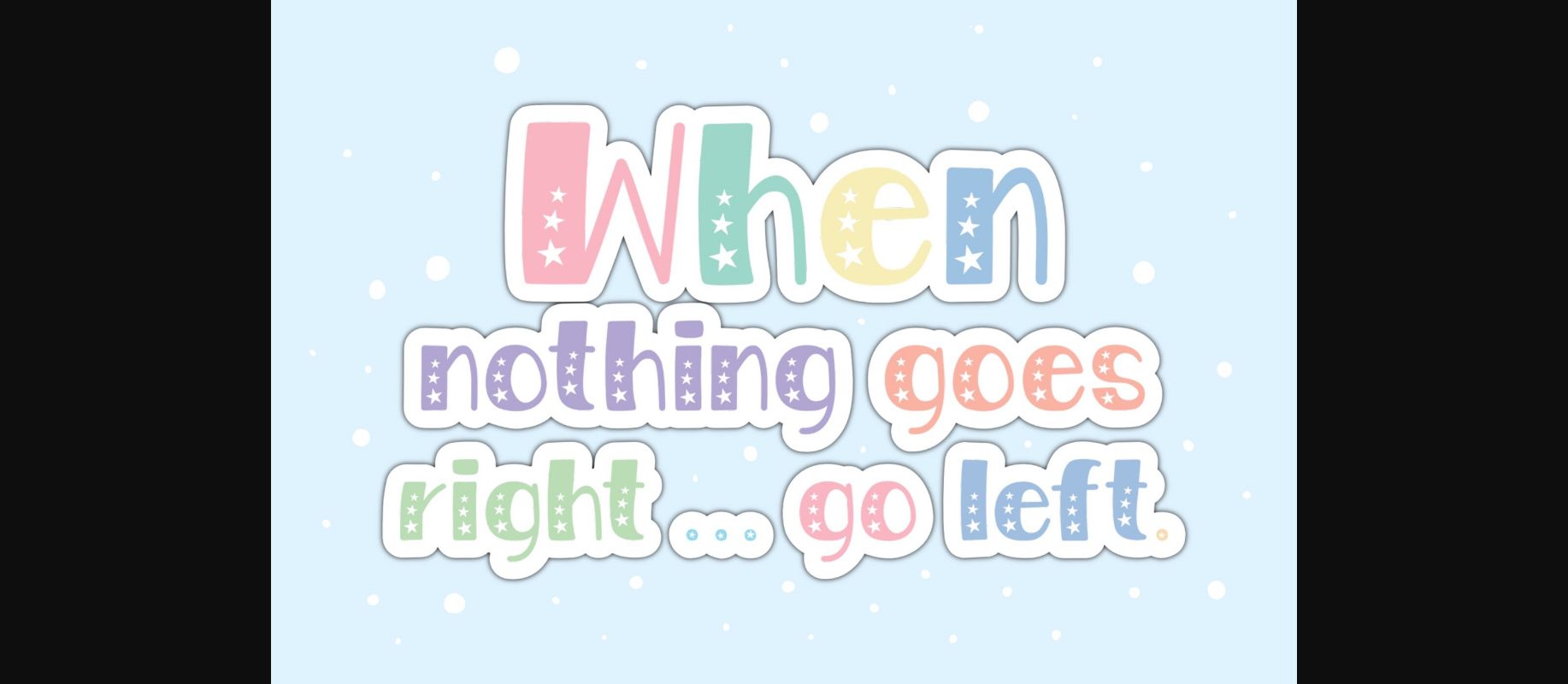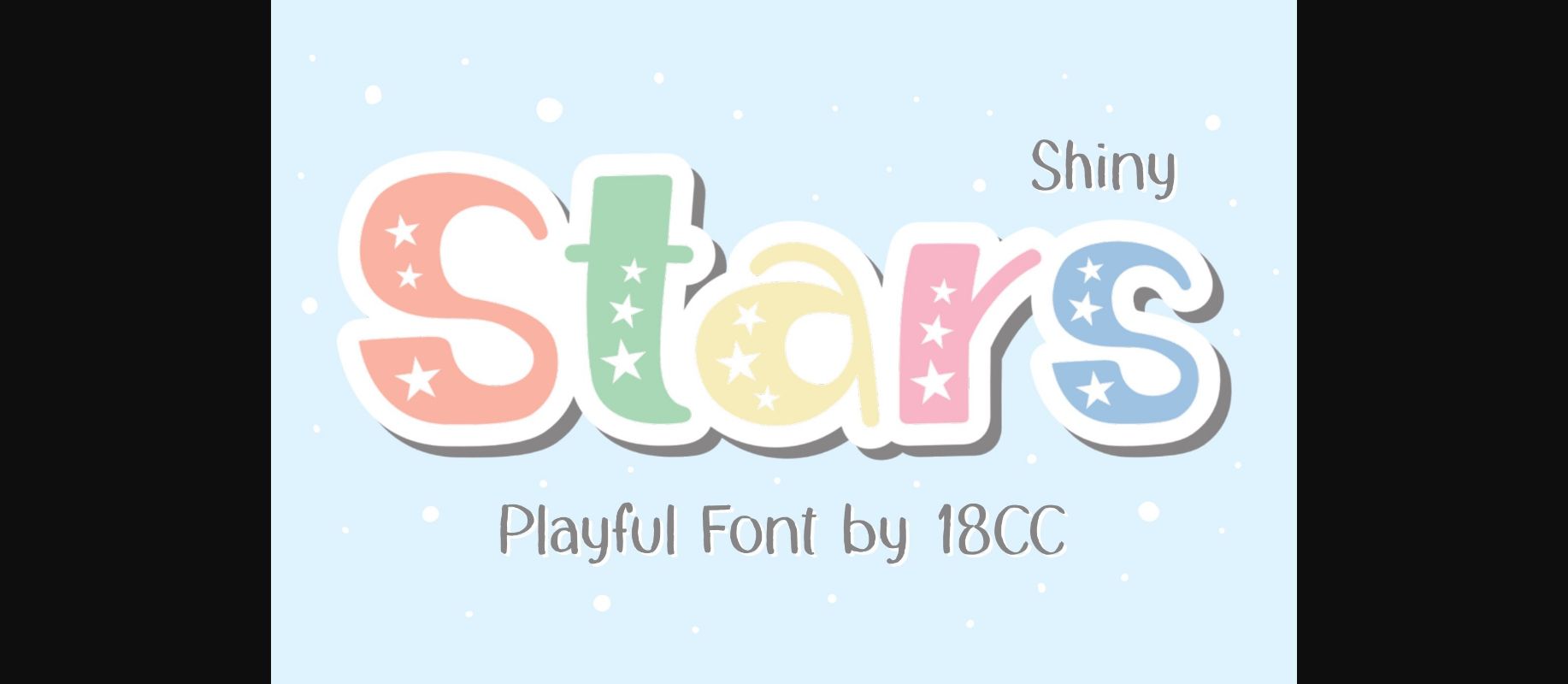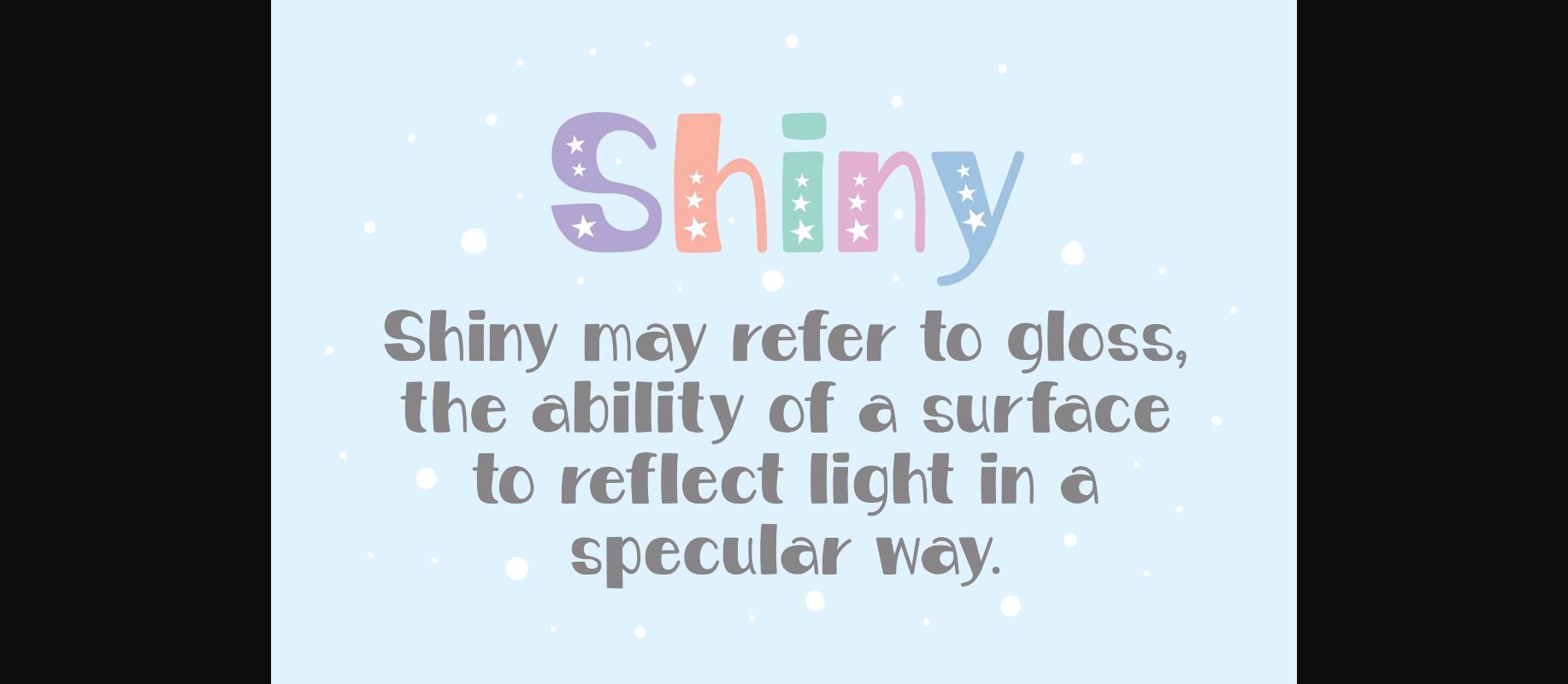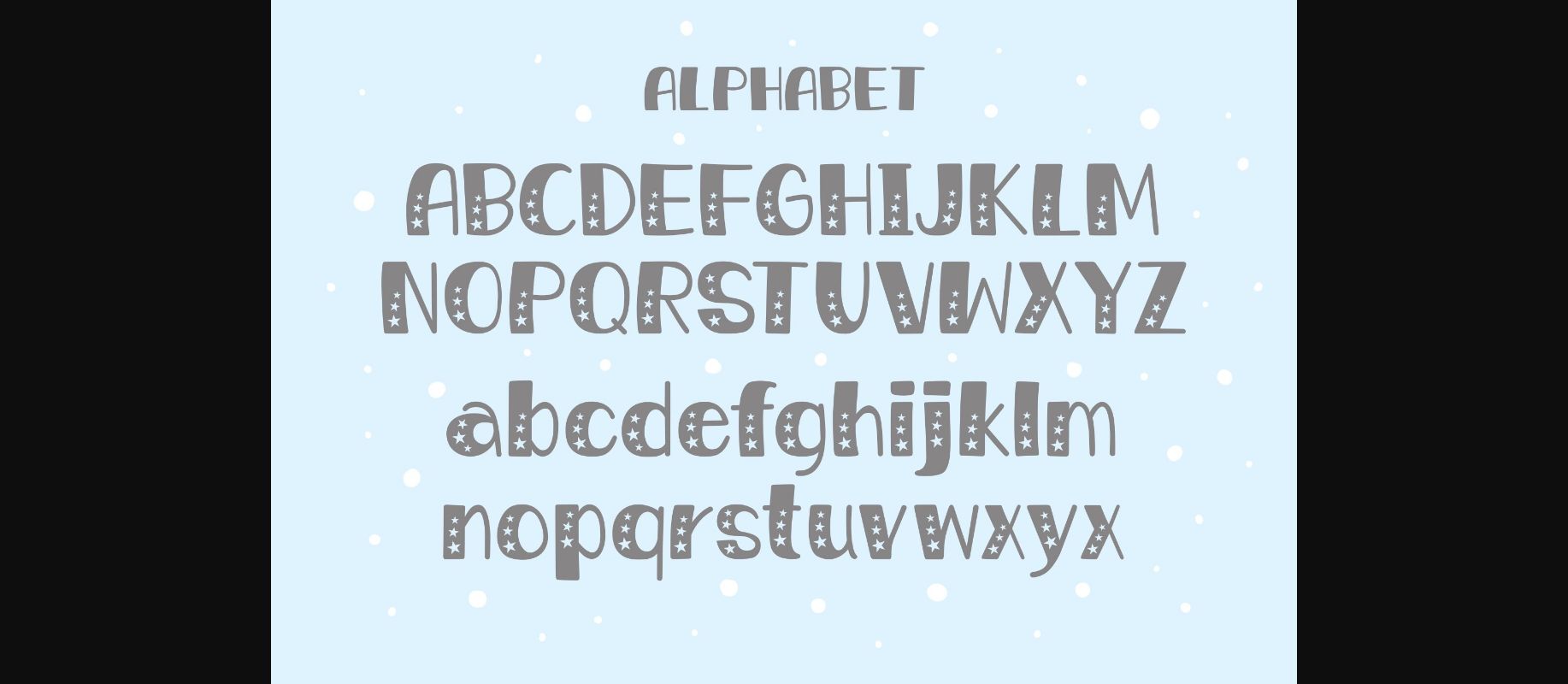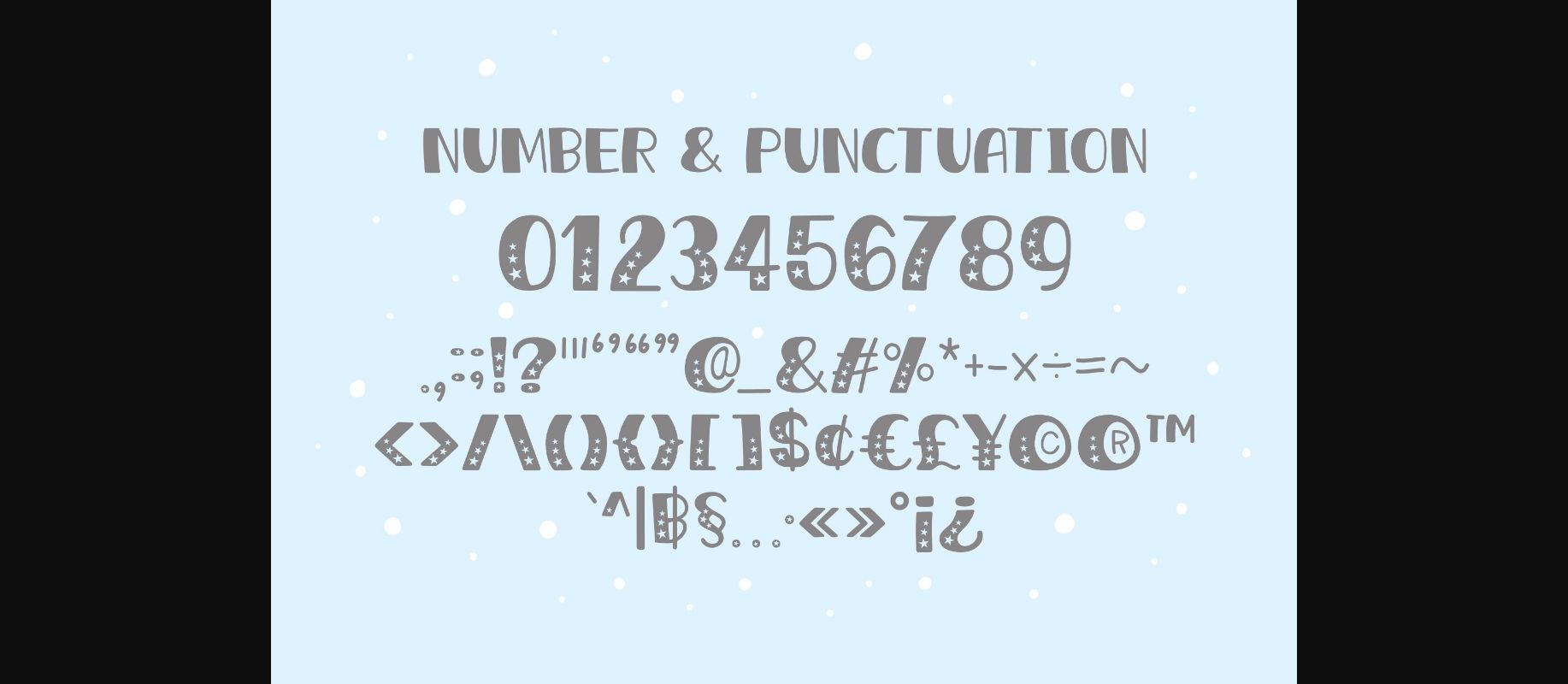
Shiny Stars Font
About Shiny Stars Font
Shiny Stars is a cute decorative font. Make your festive typography stand out with this beautiful font that has the potential to elevate any creation! It is perfect for invitations, greeting cards, DIY gifts, fabric prints, and many more.